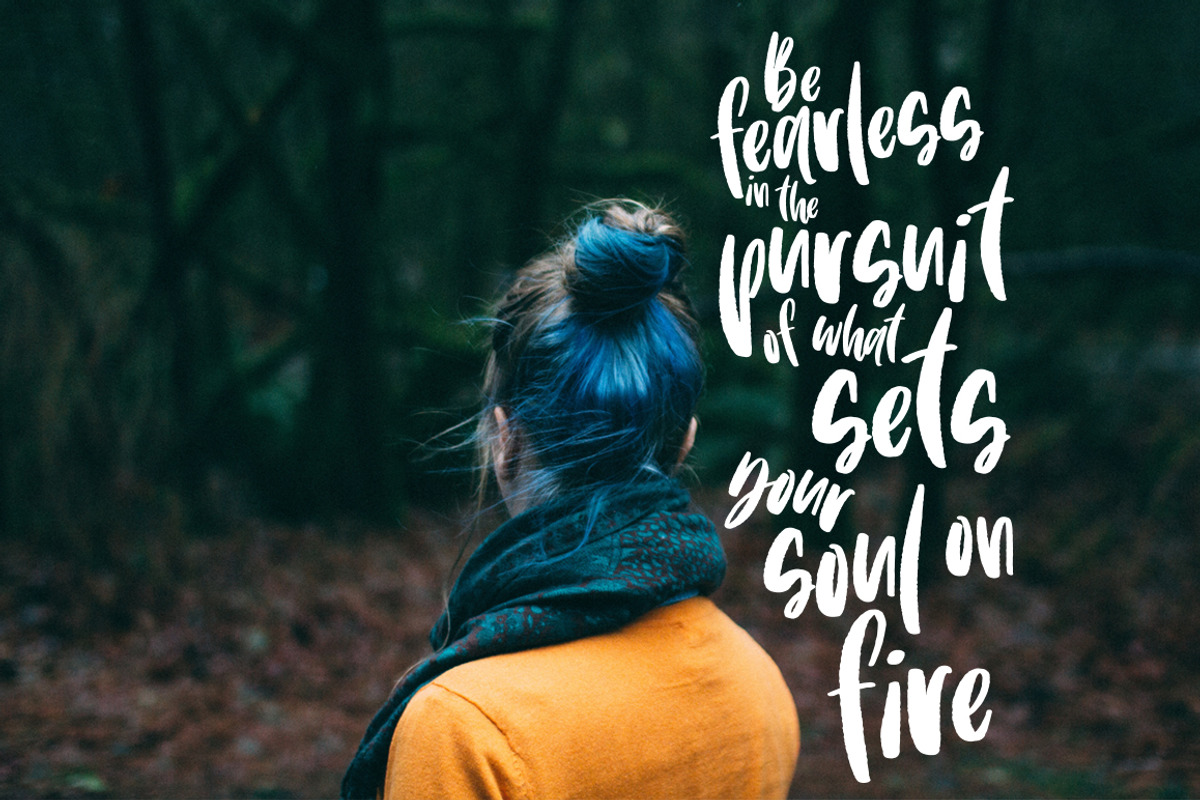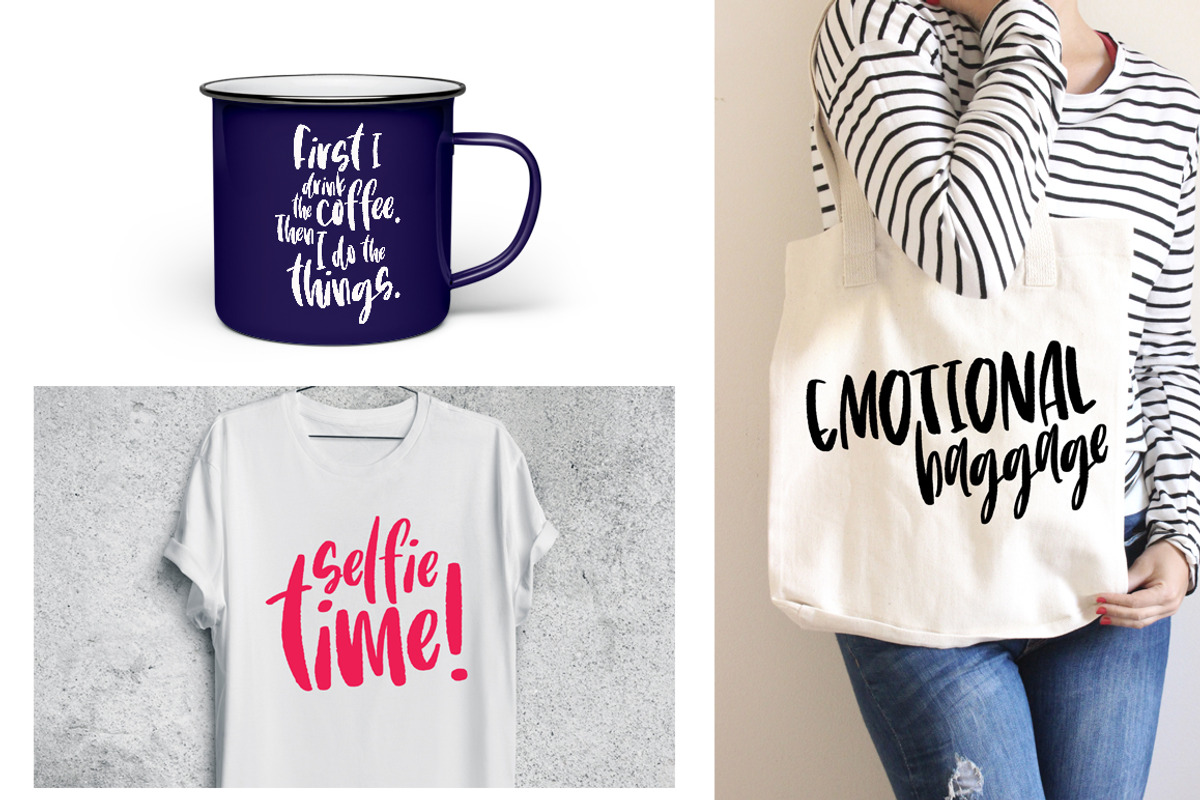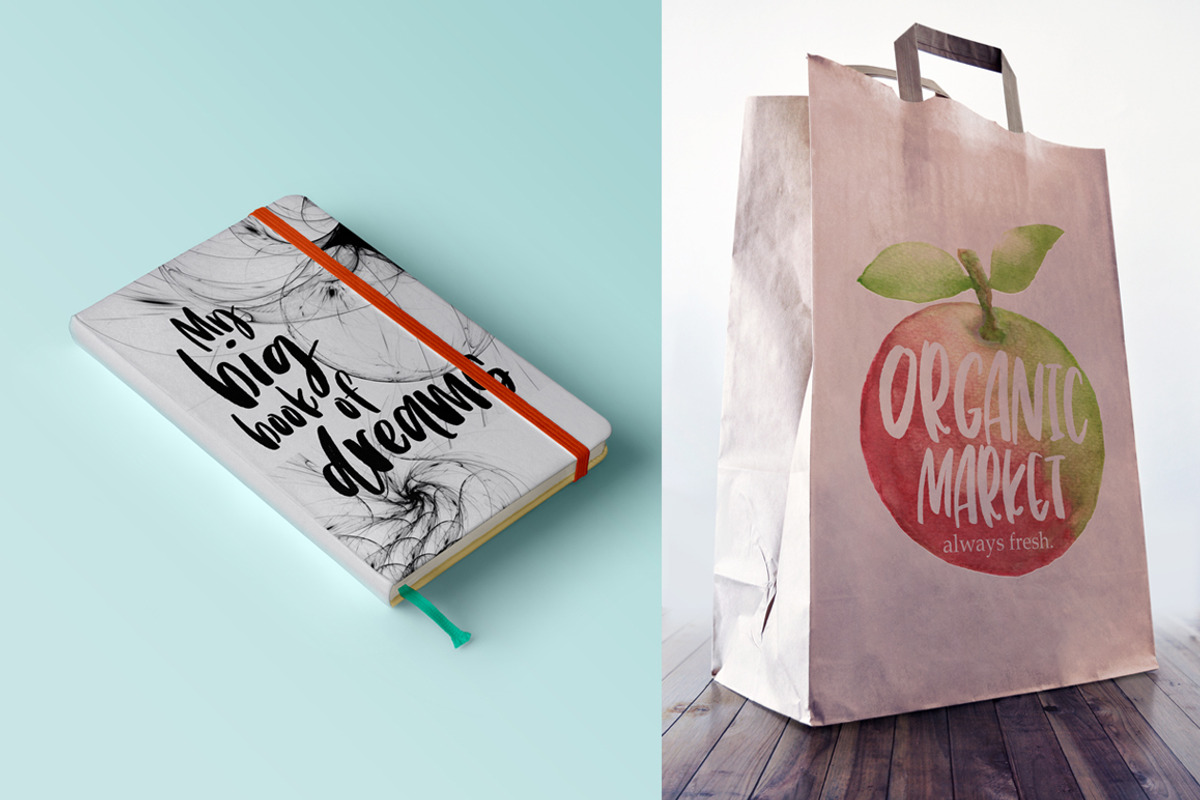
Magic Soul-a hand-written typeface
Magic Soul-a hand-written typeface by Shelly Laslo Illustration is a font selected for branding, posters, packaging, typography.
Why Magic Soul-a hand-written typeface is worth a look
Magic Soul-a hand-written typeface by Shelly Laslo Illustration fits naturally into Branding, posters, packaging, typography.